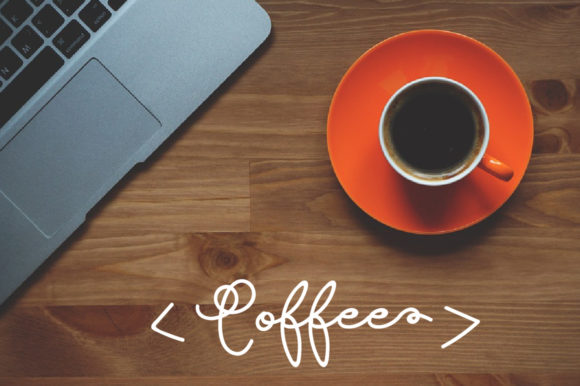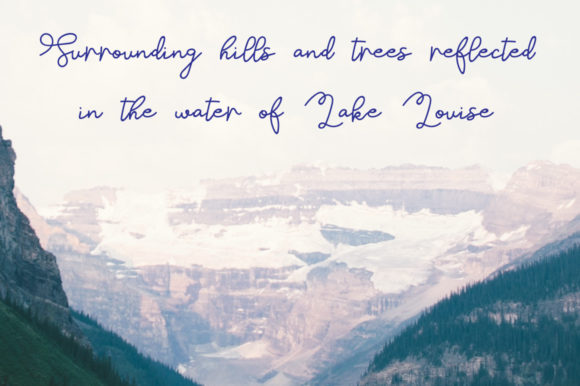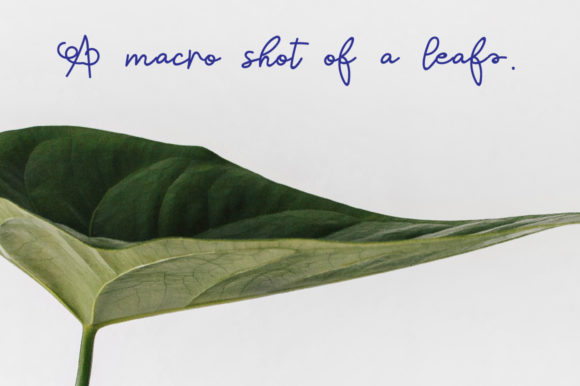
Introduction to Bundulos Font
Bundulos is a unique and bold decorative font with an authentic charm.
It will turn any creative project into a stand out .